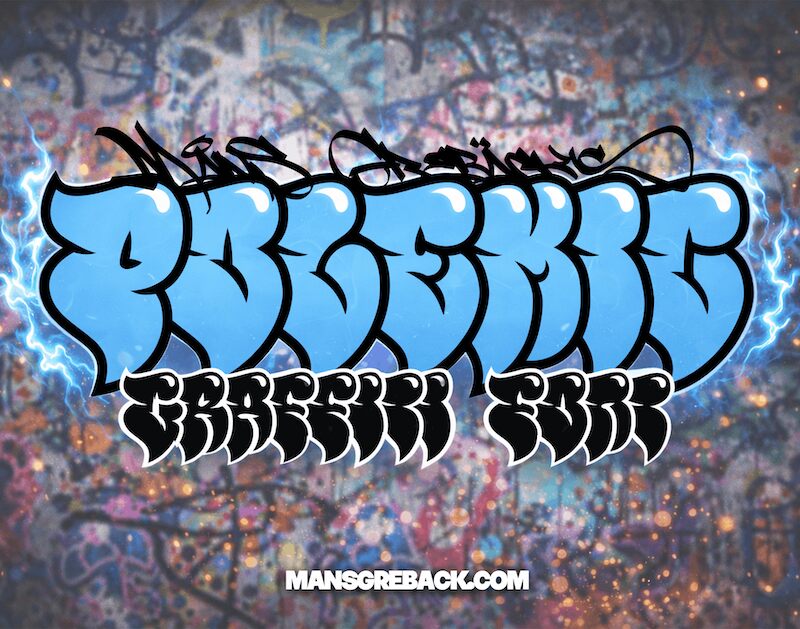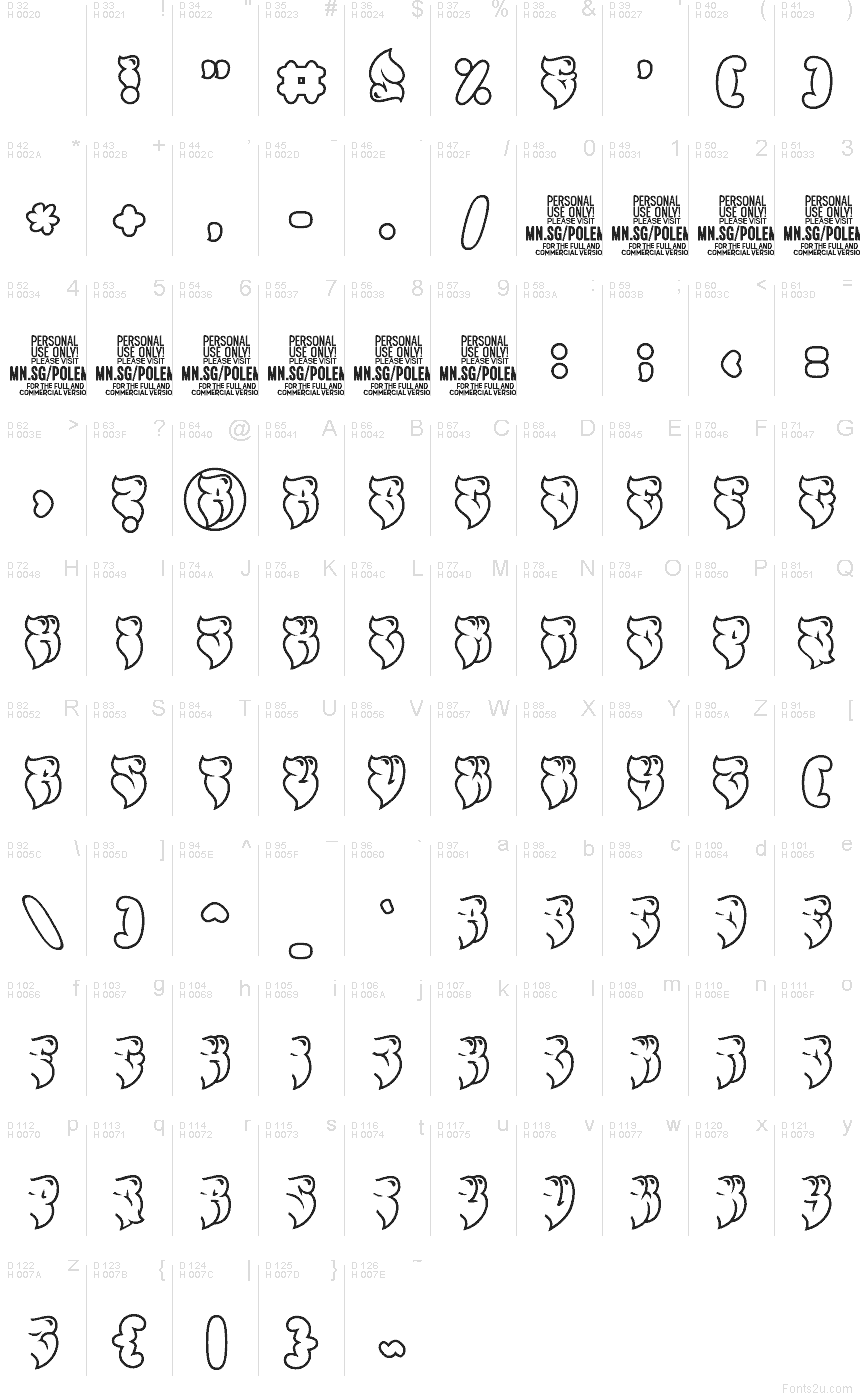
Polemic Shine PERSONAL USE Regular
Polemic Shine font by Mans Greback is a free graffiti font that brings thick, inflated letterforms and a slick outline finish straight out of the sketchbook and onto the screen. Each character feels puffed-up and alive, with rounded bellies, quick cuts, and a bold rhythm that suggests fast tagging and confident motion. The smooth curves and strong contour lines give the typeface a glossy, “wet paint” attitude that reads loud even in short words.
Using Polemic Shine, your titles and wordmarks snap with underground energy, making it a natural fit for poster art, album covers, event flyers, streetwear branding, YouTube or Twitch graphics, and bold stickers. This free font works best in oversized settings where its swollen shapes can breathe; pair it with a simple, clean sans serif for small supporting text so the graffiti style stays in the spotlight.